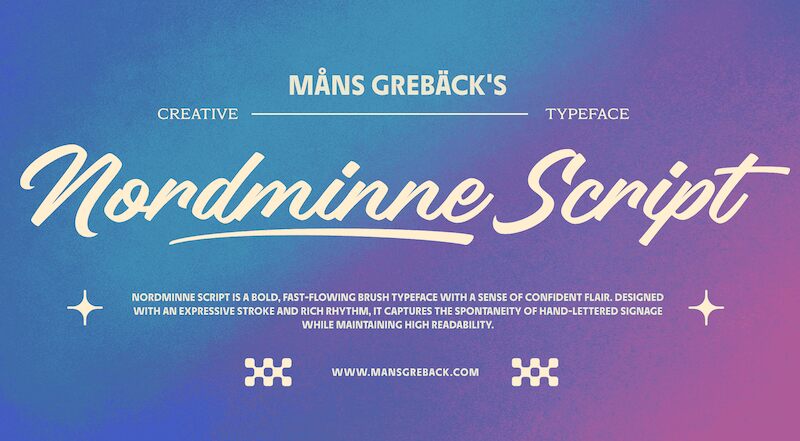
Nordminne Script font by Mans Greback is a free handwritten brush script font. It solves the tricky brief of “expressive yet readable,” with strong downstrokes, lively loops, and just enough texture to feel inky without turning messy. Letters link with a confident swing, so headlines look custom-lettered while staying crisp at a glance.
This free font shines on logos, product packaging, café menus, event invites, social posts, and storefront signage. Its brisk rhythm pulls the eye through a line, giving short phrases punch and longer titles an easy flow. Using Nordminne Script, keep words tight for impact; it loves compact, high-contrast layouts. Pair with a clean grotesque sans to handle body copy and details.
Use an underscore (_) anywhere in a word to create a swash. Example: Flower_garden
For different swashes, use multiple underlines. Example: Hand____drawn